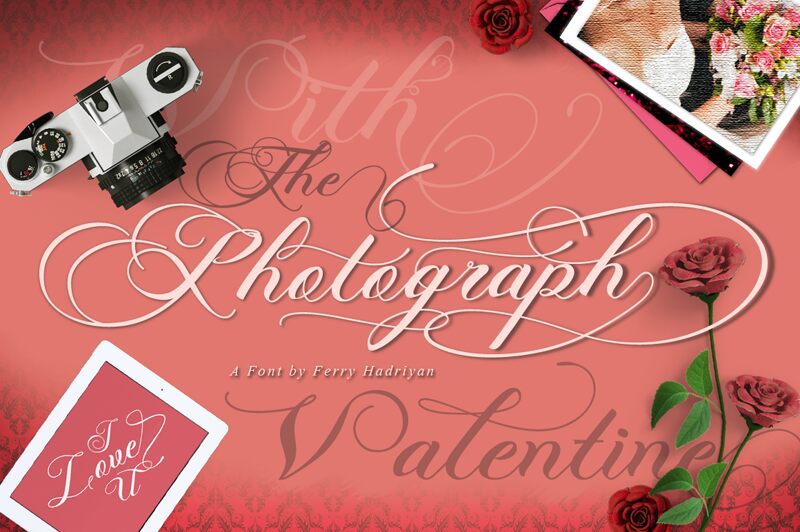
Photograph Script is a captivating calligraphic font that exudes elegance and refinement. Characterized by its fluid, interconnected letterforms, this font masterfully captures the essence of handwritten script.
The graceful curves and flourishes lend a sense of timeless sophistication, making Photograph Script an ideal choice for luxury branding, high-end editorial design, and bespoke stationery. Its adaptability allows it to seamlessly transition between formal and casual contexts, elevating any project with its sophisticated aesthetic.
Photograph Script's versatility makes it a compelling selection for designers seeking to infuse their work with a touch of refined sophistication.